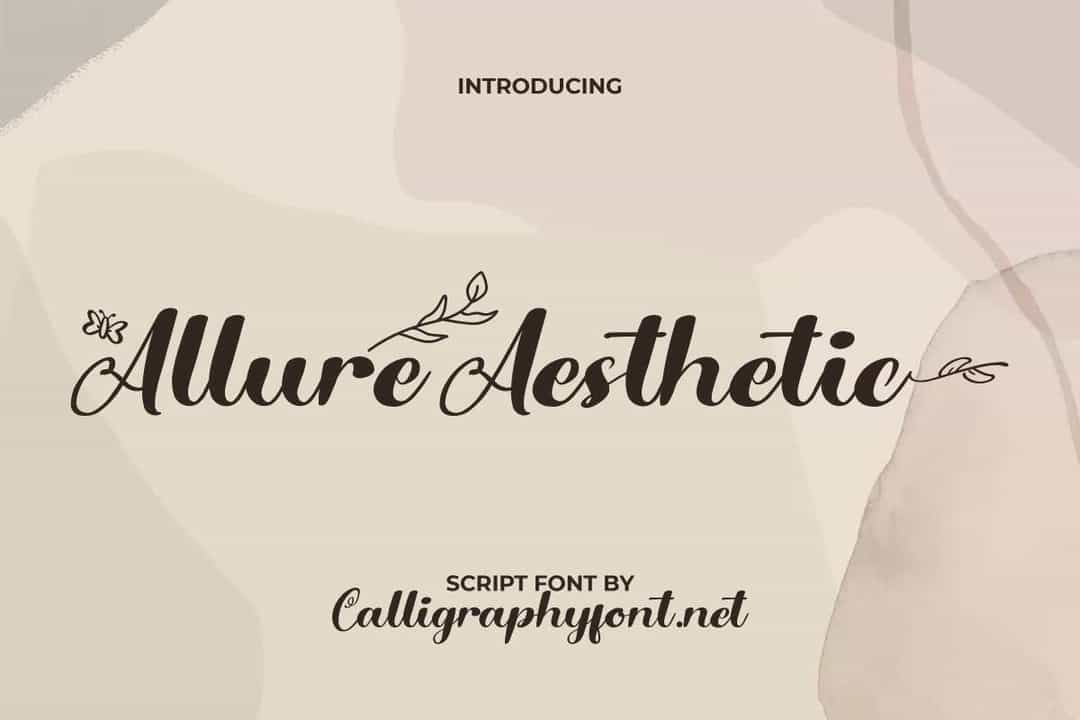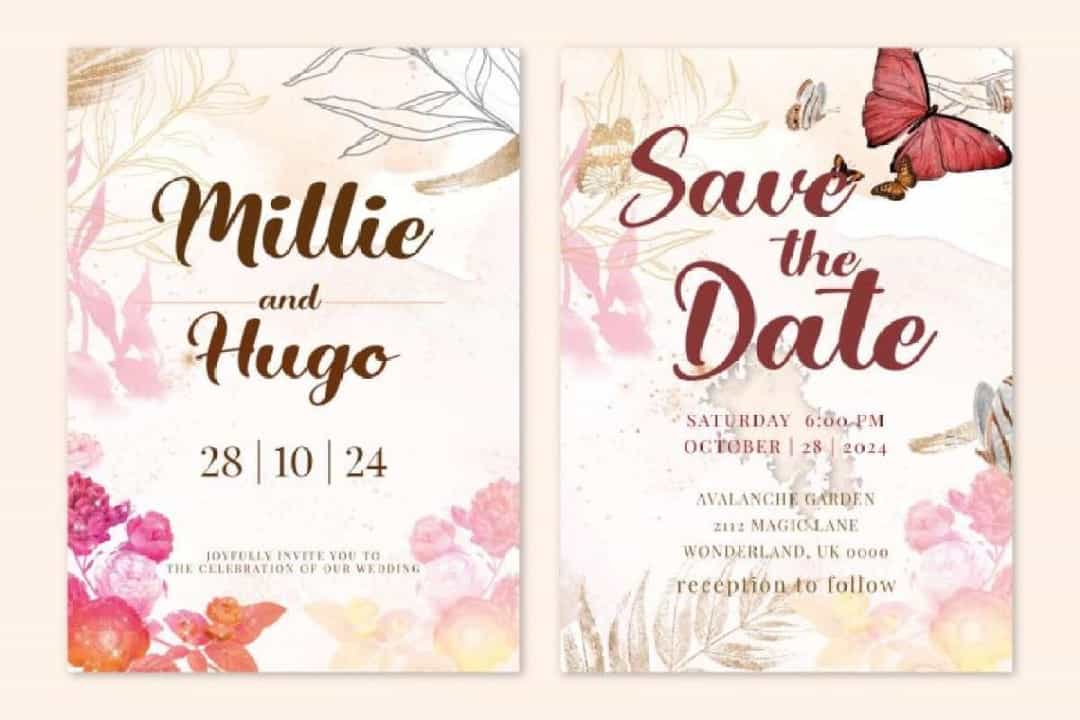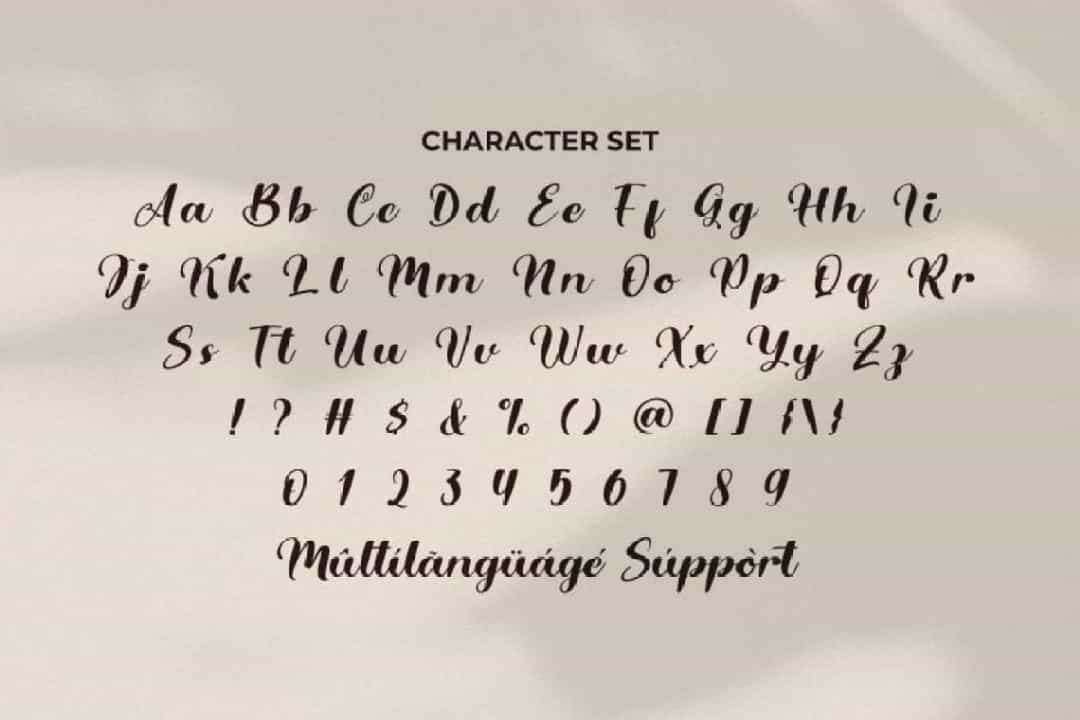
Discover Allure Aesthetic Font, part of the Calligraphy collection—a versatile and unique font perfect for adding a personal touch to your projects. Download it for free and enjoy crafting designs with style, from invitations to social media posts. This font is available exclusively for personal use, giving you the freedom to create without limits. Unlock your creativity with Allure Aesthetic Font today!
Allureis an elegant calligraphy script font with stunning flourishes of elegance. Perfect for designing business cards and fashion projects such as headliners decor, home decor salon items and wedding invitations among many other uses, Allure will add beauty and grace to any design project you are working on.